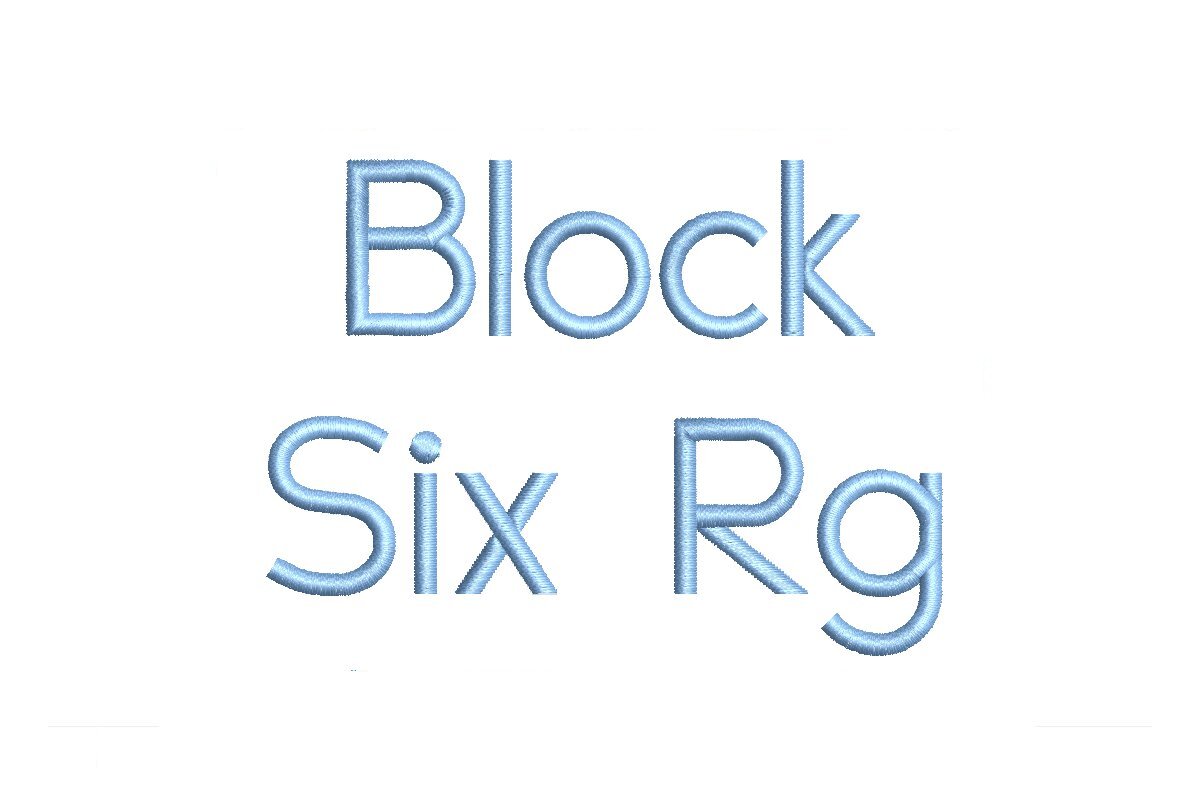
Introducing Block Six Rg ESA Font - Your Path to Bold Embroidery! Meticulously crafted for compatibility with Wilcom Studio e4.5.6 and Hatch 3 versions and beyond, this font empowers your designs with a striking presence. Whether you're a professional or a creative enthusiast, Block Six Rg ESA opens the door to a world of bold possibilities. Seamlessly integrate it with the latest software for enhanced efficiency and time-saving. Every stitch reflects precision and impact, ensuring your embroidery projects stand out. Don't miss the chance to amplify your collection with Block Six Rg ESA Font. Begin your journey into bold embroidery today, making your designs impossible to ignore!